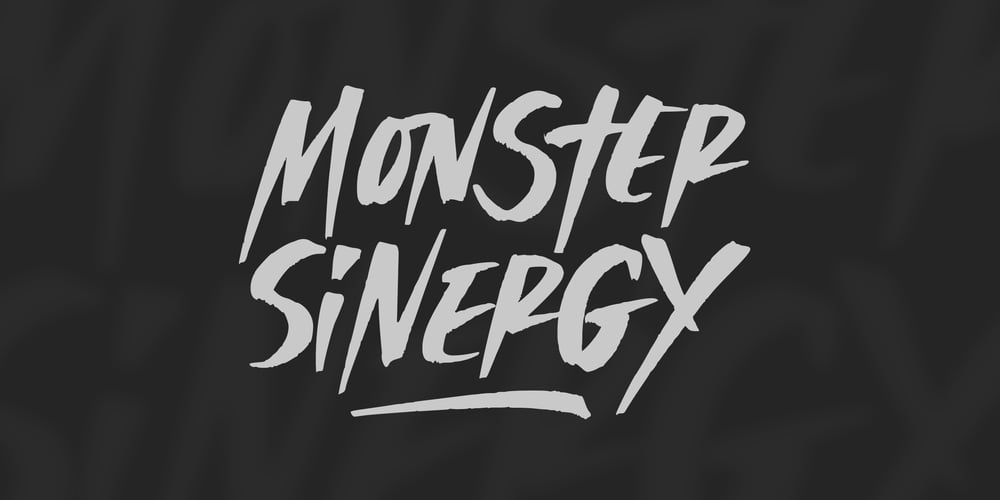
Monster Sinergy Font Family was designed by Winarno, Eko Kurniawan and published by Enbe Studio. Monster Sinergy contains 3 styles and family package options. Monster Sinergy are a dynamic and versatile type of typography that imitates brush strokes, often featuring pointed tips that give a distinctive feel. This font is inspired by the art of calligraphy and the fluidity of paint on canvas, capturing the essence of handmade art in digital form. They are widely used for their expressive qualities, making them a popular choice for branding, advertising, and artistic projects. With styles ranging from elegant to edgy, brush fonts can add a personal touch to any design, embodying a sense of creativity and individuality. You can create a new atmosphere by combining style one and style two. Extras are also available to complement your outstanding design.